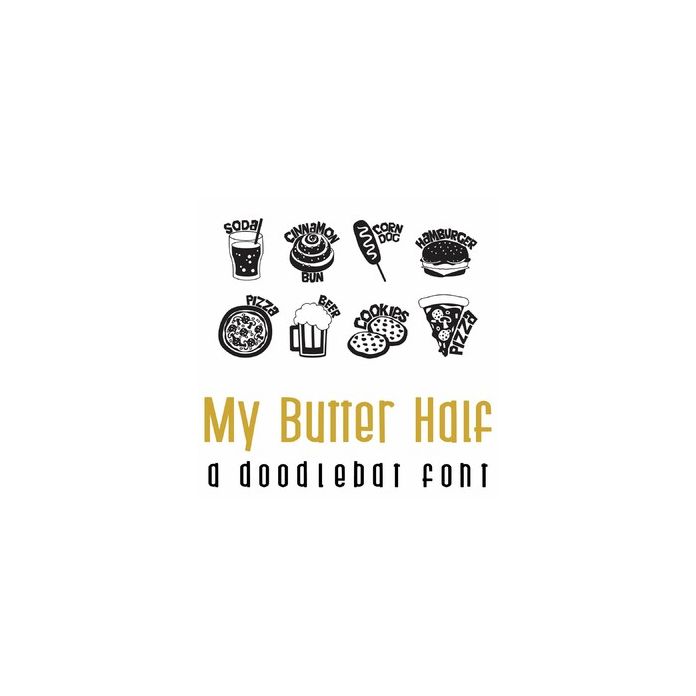
This fun doodlebat font features 26 favorite foods and puns. Perfect for Valentine's, cards, gifts, decor, crafts, scrap book pages, planner stickers and more!